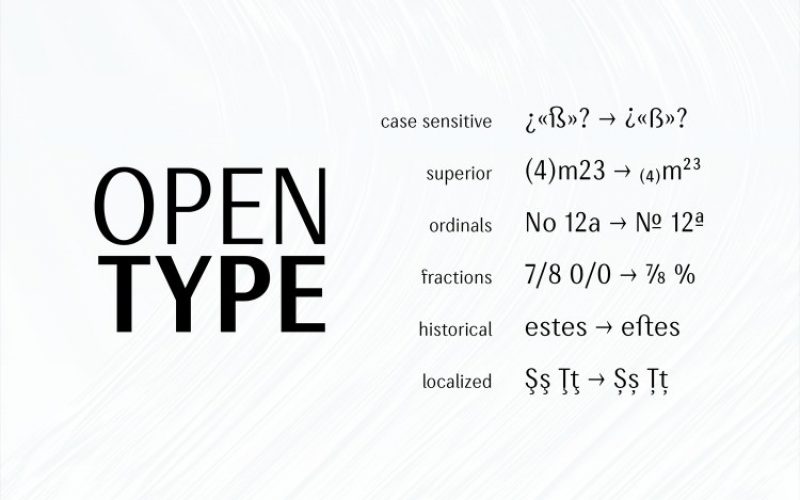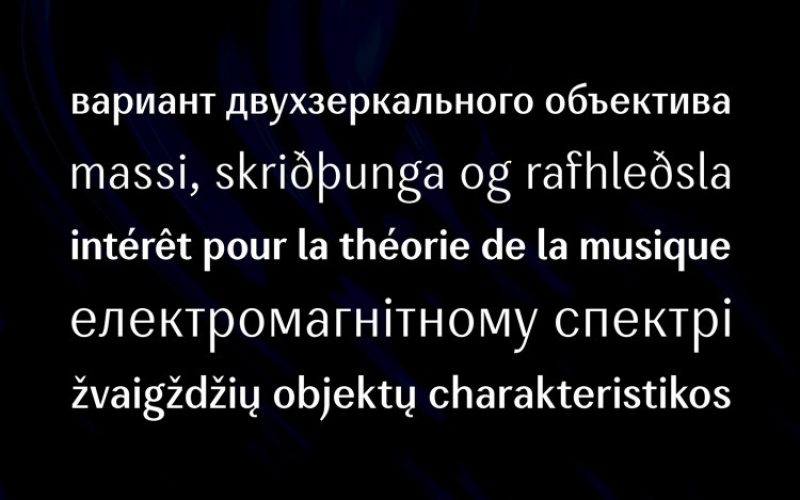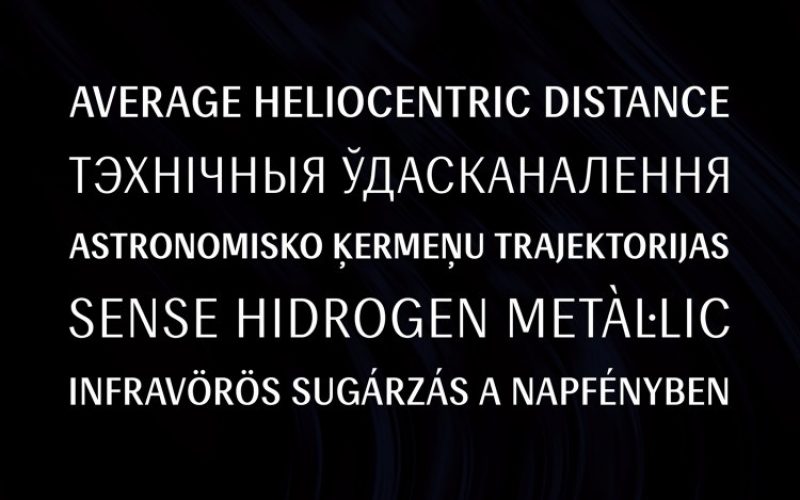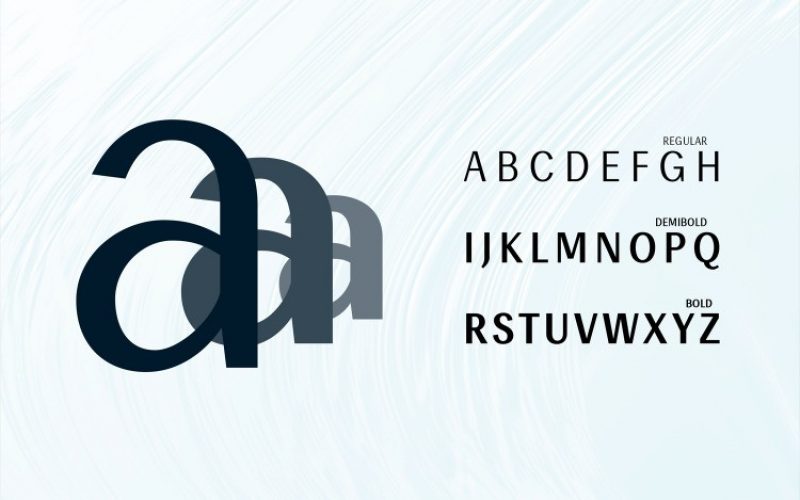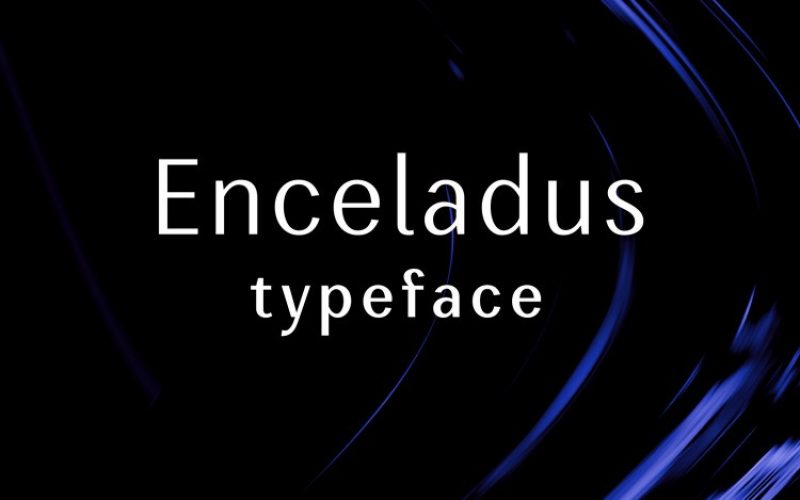
Enceladus Sans Serif Font
Enceladus – it is a semi-condensed humanistic grotesque with visible contrast. Supports extended Latin and Cyrillic. He has three styles: Regular, DemiBold, Bold.